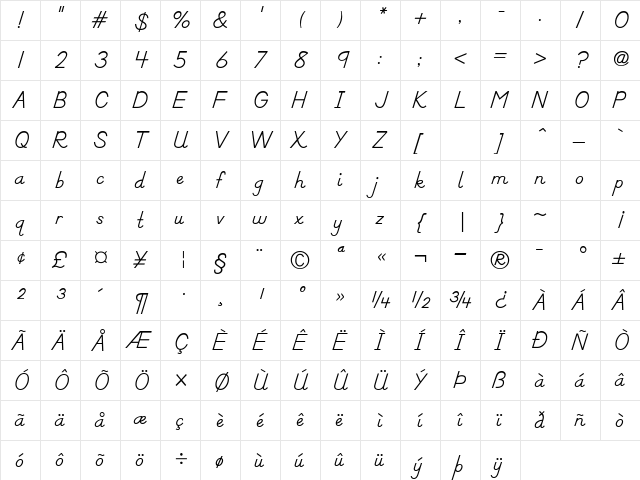
DnealianManuscript Regular Font Preview
DnealianManuscript Regular
Design Context for DnealianManuscript Typeface
DnealianManuscript flows with the natural rhythm of handwritten lettering, making it ideal for designs that call for warmth and personal expression.
Font Pairing: Combine DnealianManuscript with a simple geometric sans for maximum contrast — the tension between flowing curves and clean structure is a classic typographic pairing.
Pro Tip: Use DnealianManuscript for short runs of text — names, titles, or taglines. Extended body copy in script faces tires the eye quickly.